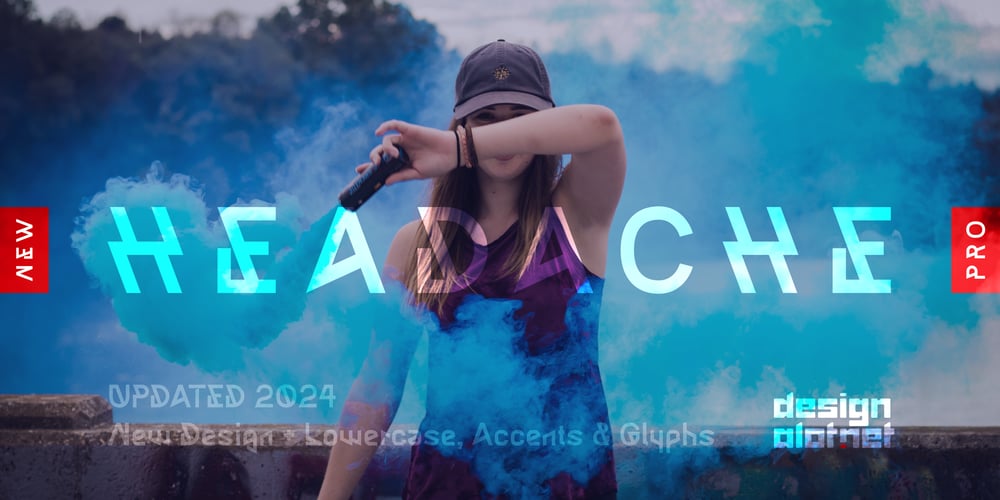
Headache PRO
Headache PRO font
Headache PRO Font Family was designed by Bogdan Cașotă and published by Design A Lot. Headache PRO contains 1 styles and family package options. Headache font is a sans serif font meant to be mad, crazy, attention seeker, rebel, distracted, open, crazy again and many of the current world moods. It has a futuristic touch and works great with headlines, logo design, branding, marketing advertising and more.Headache font’s purpose is to be an attention grabber, it’s meant to stand out and help deliver messages!The font includes: Latin UPPERCASE letters: ABCDEFGHIJKLMNOPQRSTUVWXYZ. Latin lowercase letters: abcdefghijklmnopqrstuvwxyz Numbers: 0 1 2 3 4 5 6 7 8 9. Glyphs: !?@#$%^&* ¡¿.:,;[]{}/|<> ©®§ß€¥£¢ °¹²³ªº‹›«»≤≥+× =_-–—•…“‘’“”„‘‚. And accents: Á  À Ä Å Ã Ă Æ Ç É Ê È Ë Í Î Ì Ï Ñ Ó Ô Ò Ö Õ Ø Œ Š Ș Ț Û Ú Ù Ü Ý Ÿ Ž á â à ä å ã ă æ ç é ê è ë í î ì ï ı ñ ó ô ò ö õ ø œ š ș ț ú û ù ü ý ÿ ž.